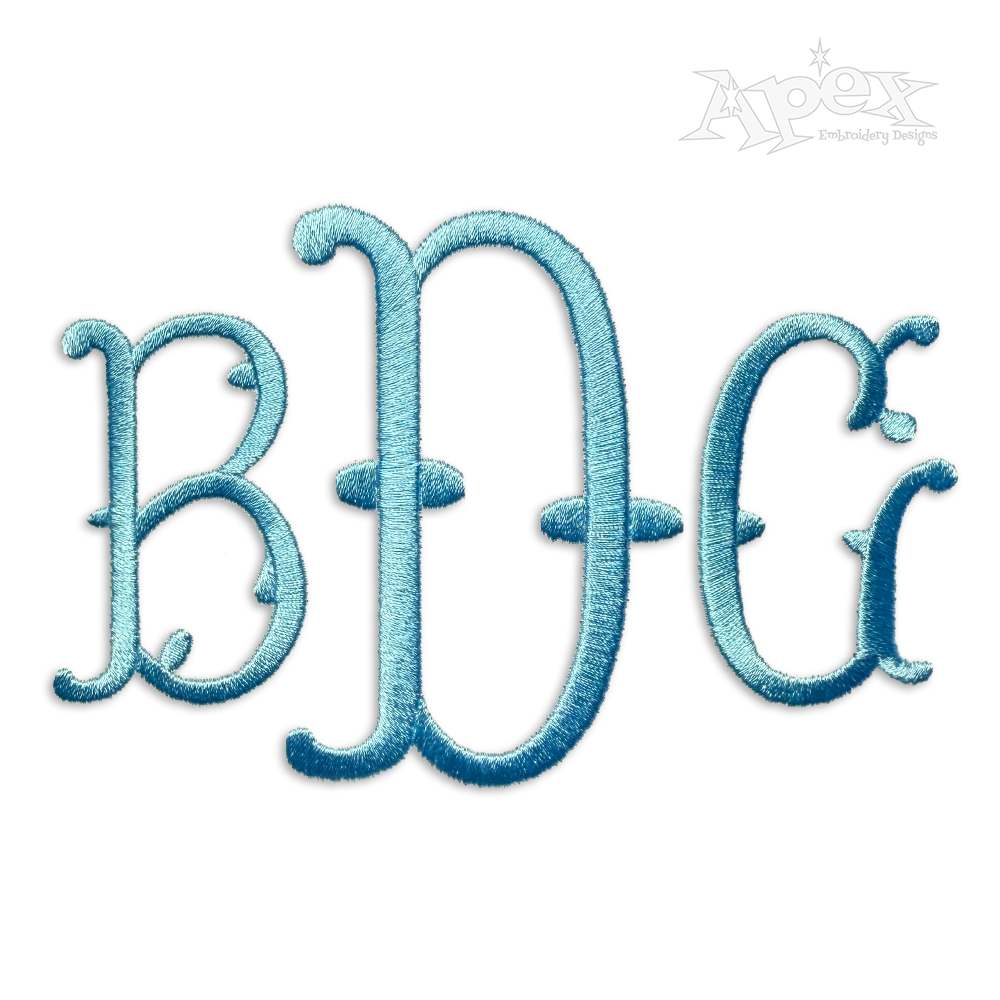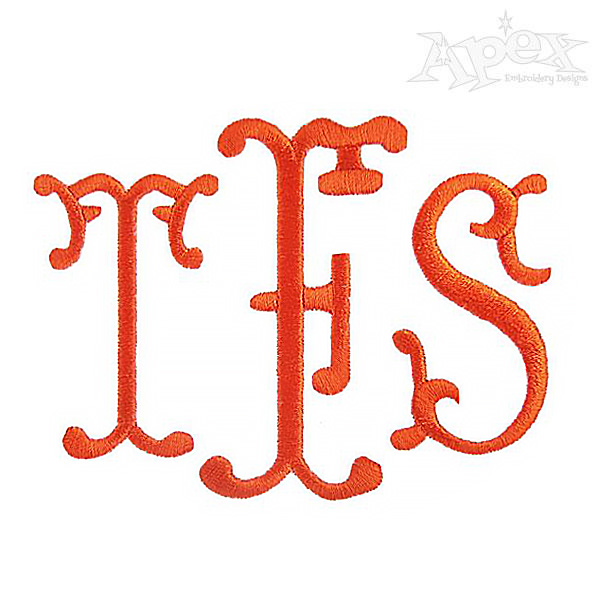
Tucson Embroidery Font
Inspired by the storied romance of the American Southwest and the sun-drenched timber of historic frontier outposts, the Tucson Embroidery Font balances rugged authenticity with refined stitch artistry. As digitizers, we set out to capture the swagger of classic nineteenth-century woodblock and saloon lettering, refining each character to glide effortlessly beneath the needle with silky precision. The result is an expressive satin stitch alphabet rich in visual depth—commanding enough to anchor heavy duck canvas and broken-in denim, yet sophisticated enough to bring distinctive charm to personalized gifting and luxury table linens.
Project Ideas for Tucson Embroidery Font
- Bespoke Western & Denim Apparel: Transform classic denim jackets, chore coats, chambray work shirts, or the back yoke of snap-button western shirts with bold custom monograms.
- Ranch-Chic Table Settings: Embroider singular initials on raw linen cocktail napkins, fringed placemats, or canvas table runners for southwestern-inspired dining.
- Heirloom Gifting: Personalize timeless gear such as wax-canvas duffel bags, boot cases, dopp kits, and leatherette valet trays with a distinguished initial.
- Rustic Home Accents: Stitch ranch family names or distinctive monograms across heavy wool throw blankets, lumbar cushion covers, and nursery lodge decor.
Thanks to its bold, architectural letterforms, Tucson anchors beautifully across varied textile canvases:
- Corner Diagonal: Angle a 1-inch or 2-inch initial diagonally across the mitered corner of linen cocktail napkins, aligning roughly 1.5 inches inward from the finished edge for classic elegance.
- Center Chest & Yoke: Position the 2-inch or 3-inch glyphs centered directly across sweatshirt chests or centered between the rear shoulder seams of outerwear.
- Cuff & Hemline Details: Place the 1-inch letters along the outer edge of a sleeve cuff, pocket welt, or above a shirt hem for an understated, tailor-made signature.
- Vertical Stacking: For long canvas tote straps, backpack webbing, or boot shaft accents, arrange the letters vertically to celebrate the font's clean vertical symmetry.
Tucson Embroidery Font Craft & Letterform Details
What gives Tucson its captivating character is the deliberate interplay between historic frontier grit and modern satin stitch precision. Honoring vintage Wild West typography, each letterform features strong vertical stems crowned by sharp bracketed serifs and central spurs. Rather than using static fill patterns, our digitizing path sculpts the thread flow dynamically around every contour, guiding the needle so the silky satin columns catch ambient light from every angle.
Beneath the surface, the embroidery engineering is just as thoughtful. Tailored underlay stitching reinforces the core of each stem and locks down fabric nap before the top satin layer is laid, virtually eliminating puckering on sturdy twills, knits, or textured linens. The tapered spurs finish cleanly with pinpoint accuracy, delivering a finished monogram that looks like it stepped right out of a master artisan leather shop.